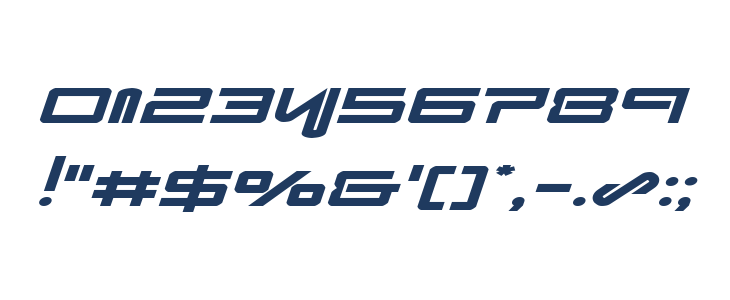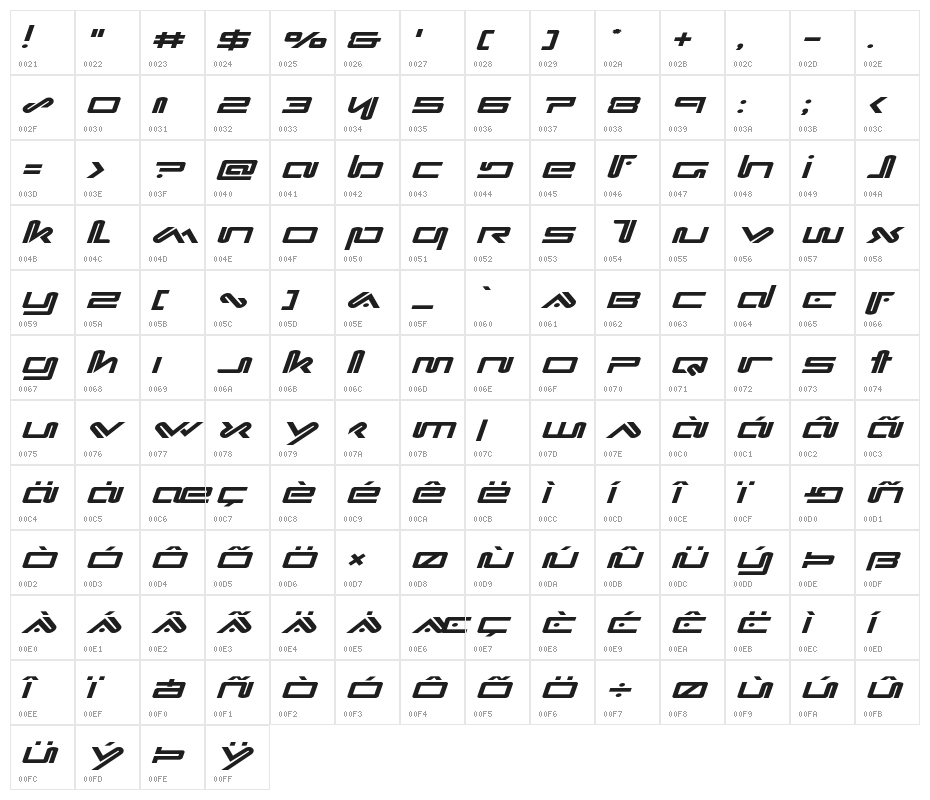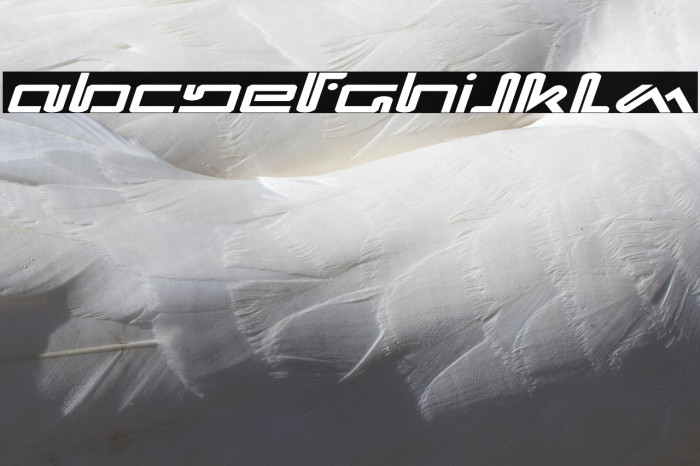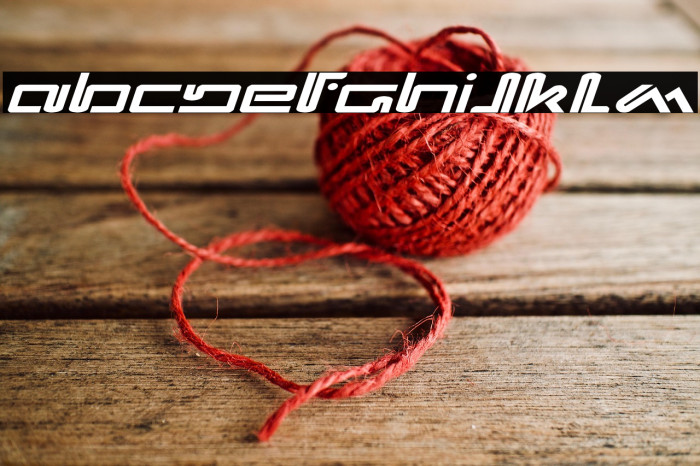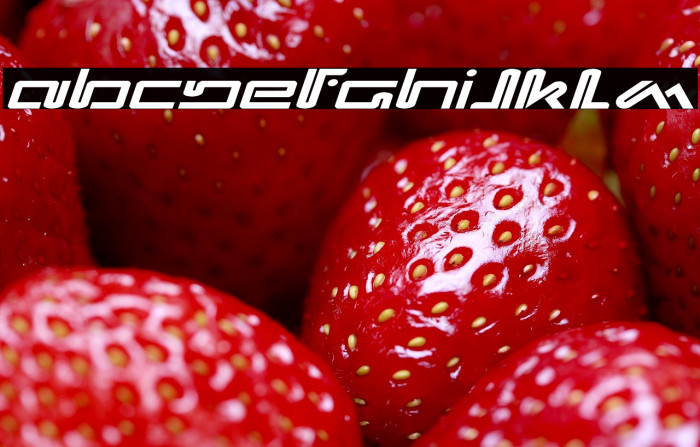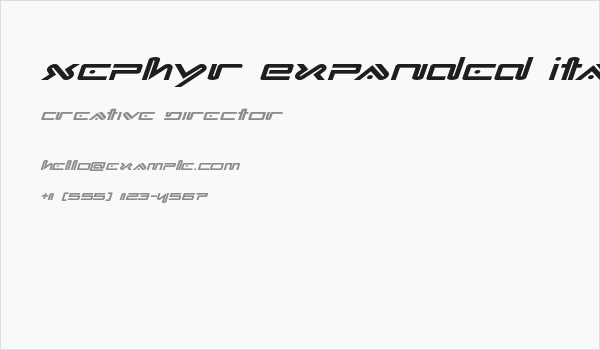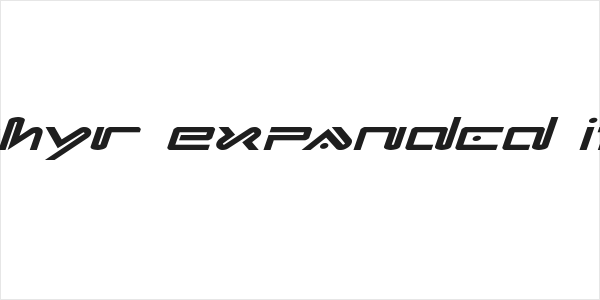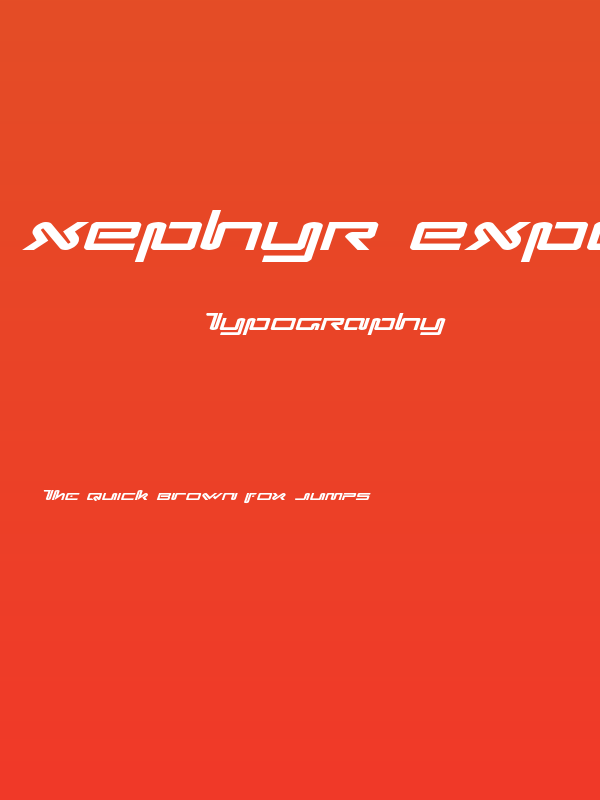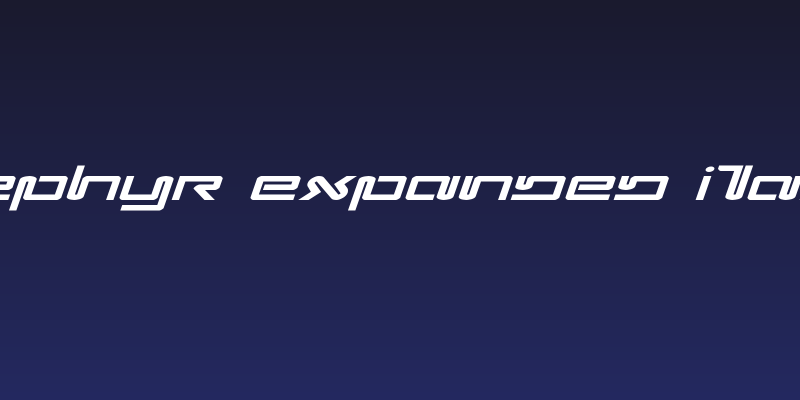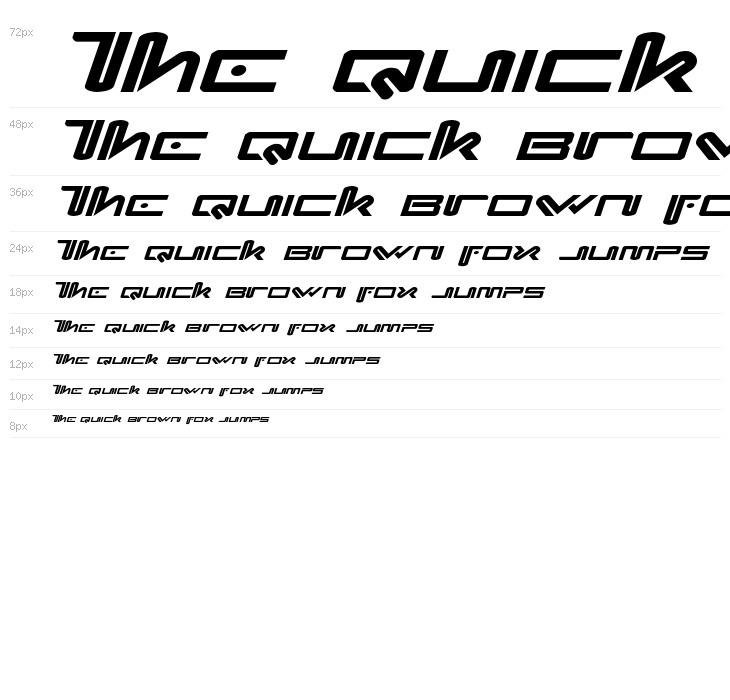
Xephyr Expanded Italic Font
This font features a futuristic and dynamic design with a distinct italic slant, giving it a sense of motion and speed. The characters are bold and expanded, with a geometric and angular style that emphasizes sharp edges and clean lines. The uppercase and lowercase letters maintain a consistent aesthetic, with unique variations that add visual interest. Numbers and special characters follow the same design principles, ensuring a cohesive look across all glyphs. The font's modern and edgy appearance makes it suitable for projects that require a contemporary and tech-savvy feel.
| Proposed Projects | Ideal for technology branding, sci-fi posters, video game titles, and modern advertising. |